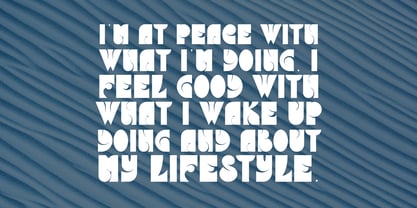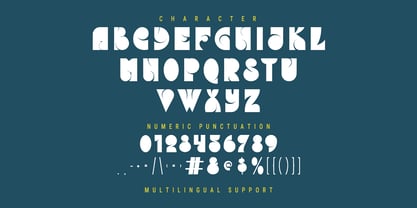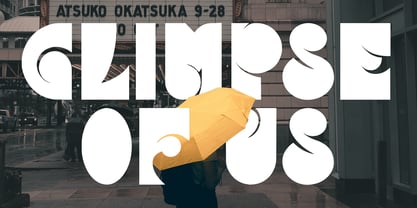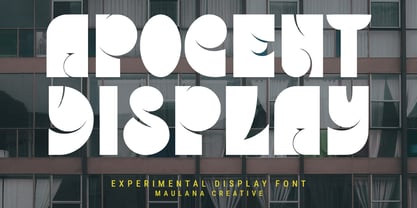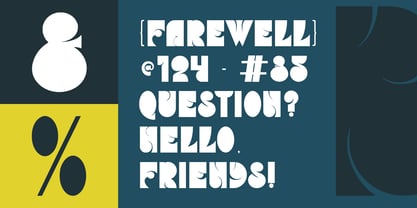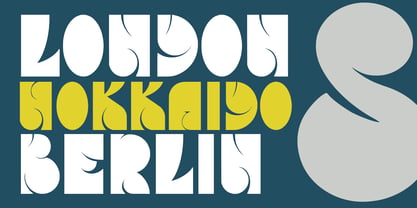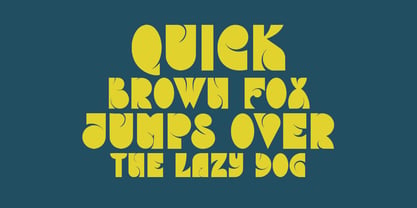
MC Apocent
von Maulana Creative
Die Schriftfamilie MC Apocent wurde von Gilang Maulana entworfen und von Maulana Creative veröffentlicht. MC Apocent enthält 1 Stile. Mehr über diese Familie
Apocent is a experimental display font. With bold stroke, fun character to give you an extra creative work. Apocent font support multilingual more than 100+ language. This font is good for logo design, Social media, Movie Titles, Books Titles, a short text even a long text letter and good for your secondary text font with sans or serif. Make a stunning work with Apocent font.
Designer: Gilang Maulana
Foundry: Maulana Creative